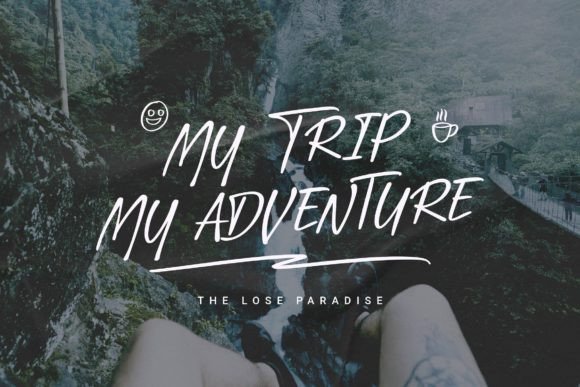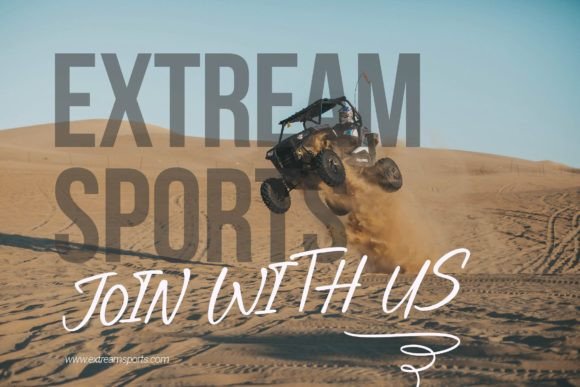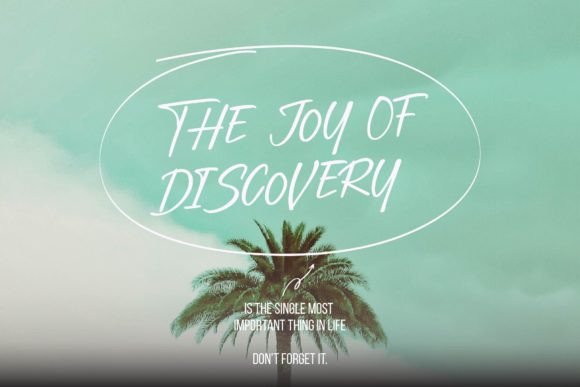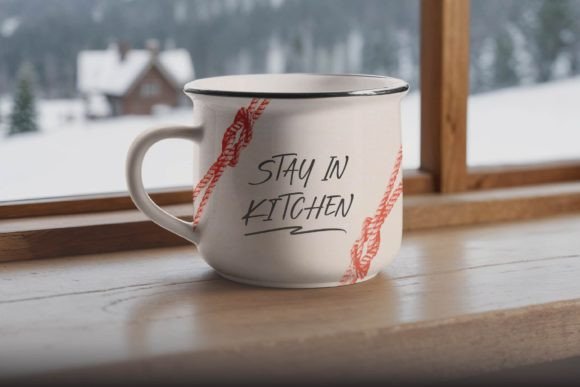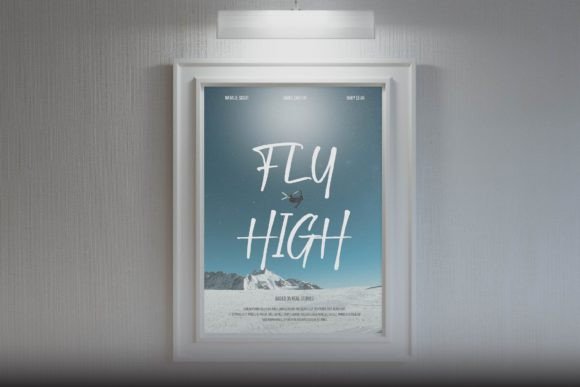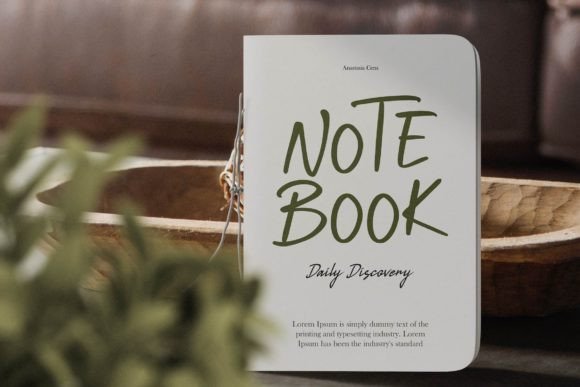
Introducing Contra Diksi Font: The Perfect Casual Handwritten Font for Designers and Crafters
Are you tired of using the same old fonts for your designs and crafts? Look no further! Contra Diksi font is here to add a touch of personality and whimsy to your projects. This casual handwritten font is designed to mimic natural, everyday writing, making it perfect for informal notes, personal projects, and fun designs.
The Characteristics of Contra Diksi Font
Contra Diksi font boasts a relaxed and friendly style that is sure to capture the attention of your audience. Its casual and handwritten nature gives it a unique and approachable feel, making it ideal for designers and crafters who want to add a personal touch to their work.
Some of the key characteristics of Contra Diksi font include:
- Natural and effortless look: Contra Diksi font is designed to look like everyday writing, making it perfect for creating informal notes, letters, and cards.
- Relaxed and friendly style: The font’s relaxed and friendly style makes it perfect for designs that require a personal touch, such as invitations, posters, and flyers.
- High legibility: Contra Diksi font is designed to be highly legible, making it easy to read and understand, even at small font sizes.
Uses of Contra Diksi Font
Contra Diksi font is a versatile font that can be used for a wide range of design projects, including:
- Informal notes and letters: Contra Diksi font is perfect for creating informal notes and letters that require a personal touch.
- Personal projects: The font’s casual and handwritten nature makes it ideal for personal projects, such as scrapbooking, journaling, and crafting.
- Fun designs: Contra Diksi font is perfect for creating fun and playful designs, such as posters, flyers, and brochures.
- Digital and print media: The font can be used for both digital and print media, including social media graphics, blog posts, and print materials.
Tips for Using Contra Diksi Font
Here are some tips for using Contra Diksi font in your designs:
- Pair it with other fonts: Contra Diksi font can be paired with other fonts to create a unique and visually appealing design.
- Use it for headings and body text: The font’s high legibility makes it perfect for use as both headings and body text.
- Experiment with colors and textures: Contra Diksi font can be used with a range of colors and textures to create a unique and eye-catching design.
Why Designers and Crafters Love Contra Diksi Font
Designers and crafters love Contra Diksi font for its unique and playful style. Here are some reasons why:
- Unique and distinctive: Contra Diksi font is a unique and distinctive font that can help designers and crafters stand out from the crowd.
- Easy to use: The font is easy to use and can be incorporated into a wide range of design projects.
- Versatile: Contra Diksi font is a versatile font that can be used for both digital and print media.
Contra Diksi font is a casual handwritten font that is perfect for designers and crafters who want to add a personal touch to their work. Its relaxed and friendly style makes it ideal for informal notes, personal projects, and fun designs. With its high legibility and versatility, Contra Diksi font is a great addition to any designer’s or crafter’s toolkit.